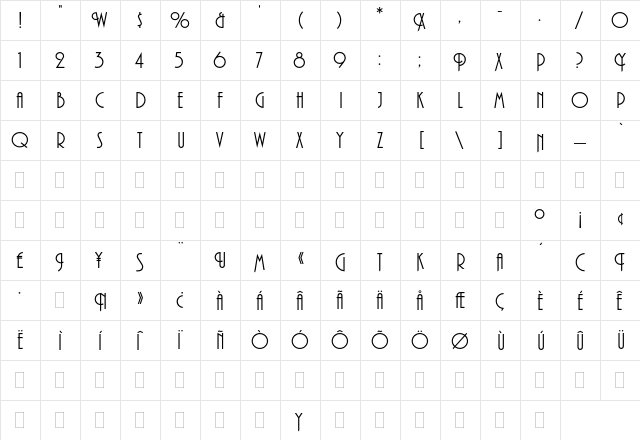
Plaza Plain
Design Context for Plaza Typeface
Plaza is a composed and adaptable typeface that performs quietly and consistently across a wide range of design contexts.